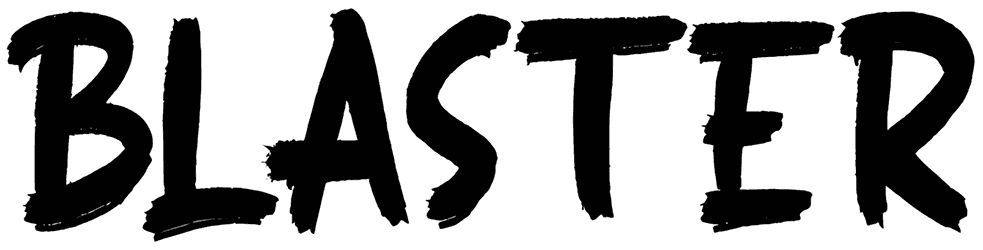
Blaster Font
Blaster is an urban-style brush font that offers courageous, assertive paintbrush characters that are effective! This font has an influential artistic design that looks modern, and you can use it for conversational typography. The set of letterforms doesn’t contain the lowercase alphabet. Clothing, gaming, posters, logos, advertisements, and branding are a few places to include this Blaster font.